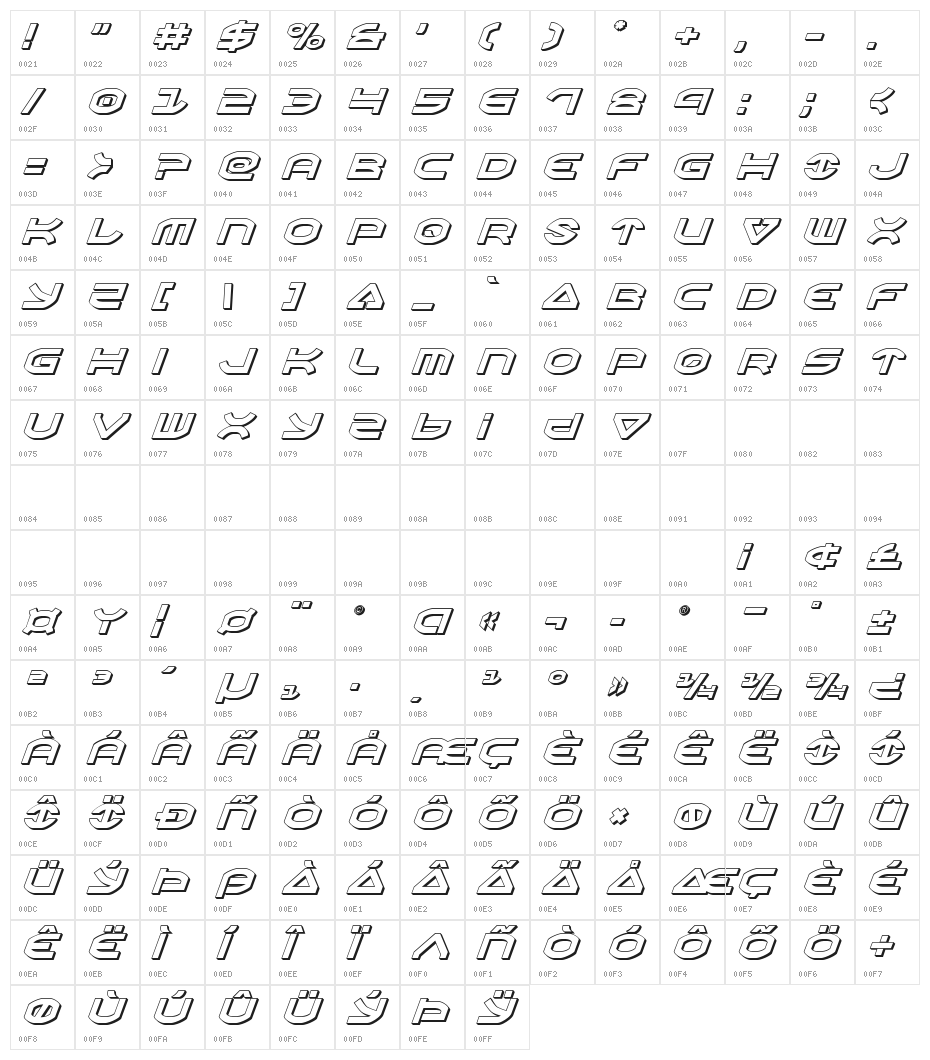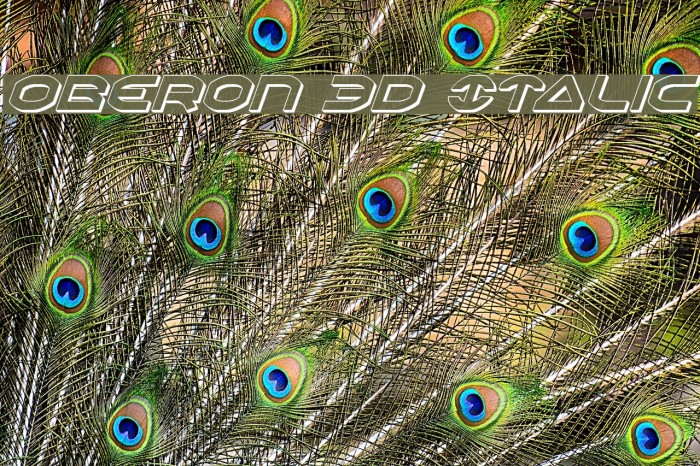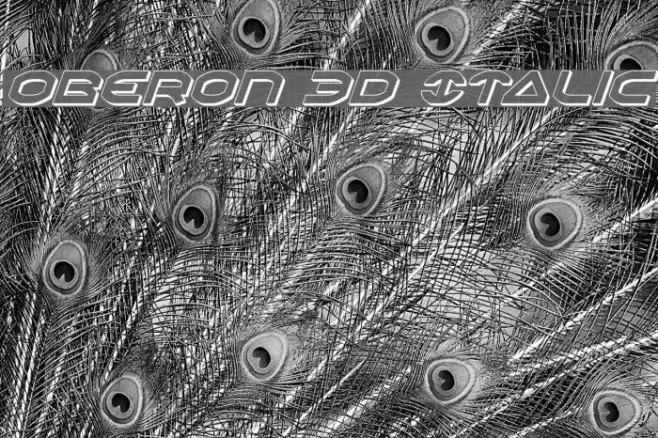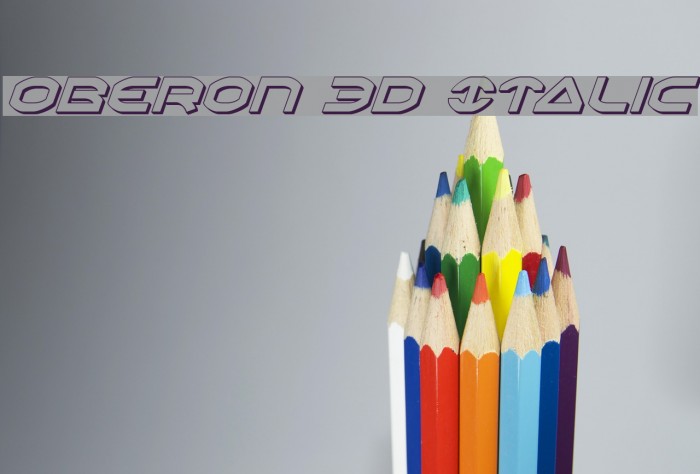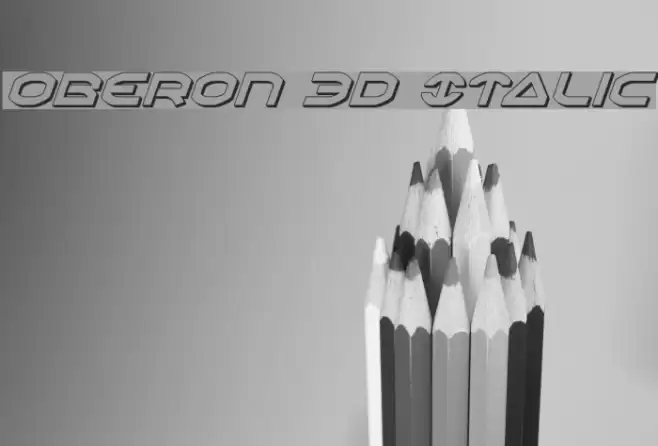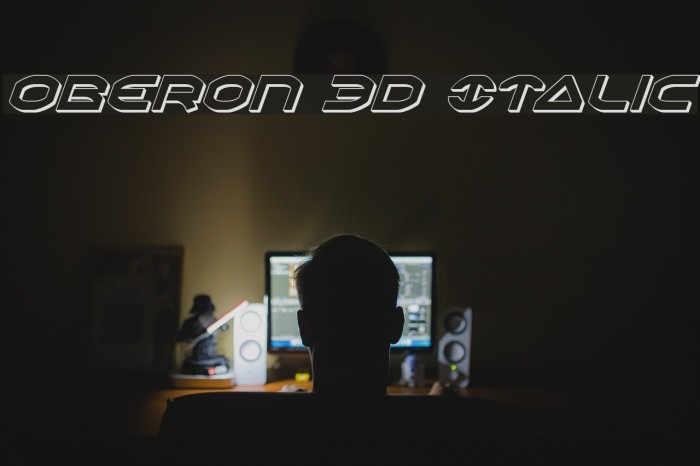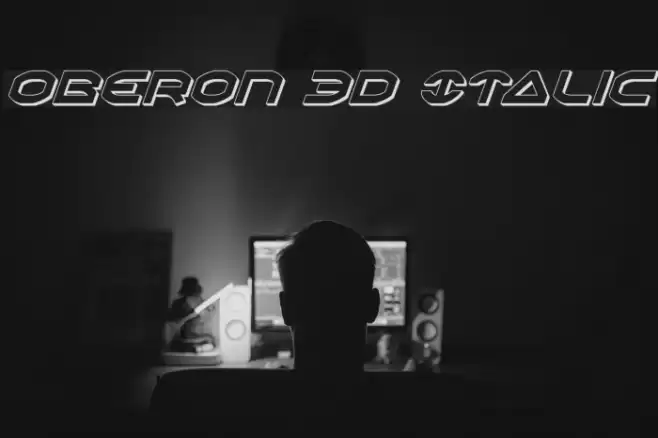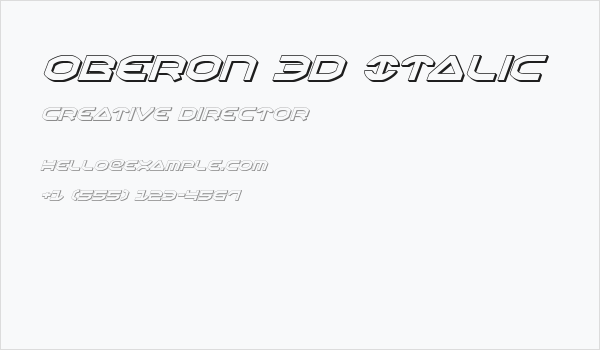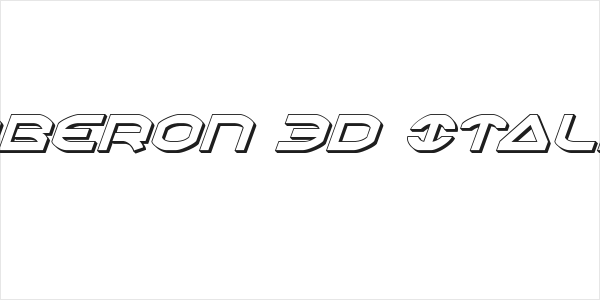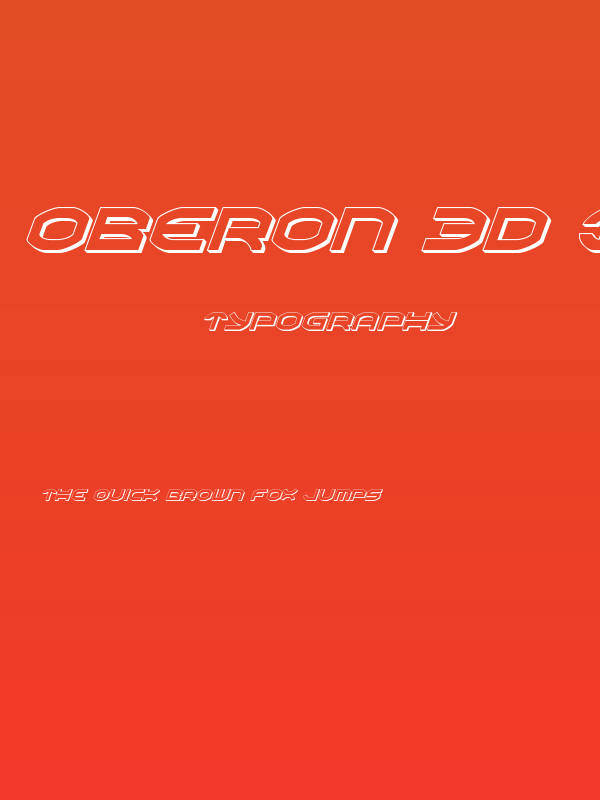
Oberon 3D Italic Font
Oberon 3D Italic Description
This font features a bold, three-dimensional design with an italic slant, giving it a dynamic and futuristic appearance. The characters are outlined with a thick border, enhancing the 3D effect and making them stand out. The geometric shapes and sharp angles contribute to its modern and tech-inspired look. The uppercase and lowercase letters maintain a consistent style, while the numbers and special characters are designed to match the overall aesthetic. This font is ideal for projects that require a strong visual impact and a contemporary feel.
| Proposed Projects | Ideal for technology branding, video game titles, sci-fi movie posters, and modern advertising campaigns. |